36 Bold Display Fonts for Modern Headlines in 2026
Nailing the perfect headline requires a font that carries weight and personality. As we move through 2026, designers are looking for unique typefaces that cut through the noise of standard web design. We have put together this list of 36 display fonts that range from heavy-duty industrial styles to delicate, artistic scripts. These picks are intended to give your digital and print projects a distinct edge without relying on the same old overused classics.
1. Game over Gaming Fonts
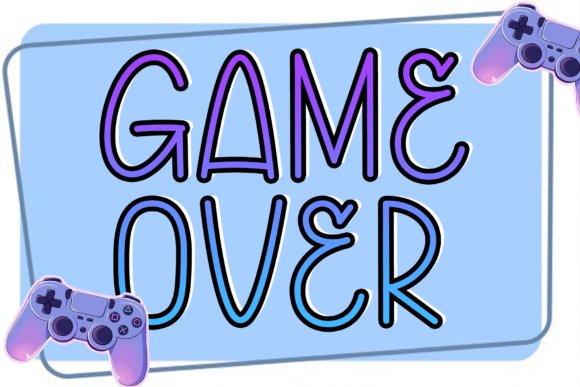
Moving away from the standard 8-bit blockiness, Game over offers a fluid, hand-inked aesthetic that challenges the traditional digital grid. This typeface captures the frantic, high-score-chasing energy of late-night arcade sessions while maintaining a sophisticated, monolinear weight that works beautifully in modern web environments. Its slender, elongated letterforms and intentional irregularities provide a refreshing departure from heavy, industrial esports fonts, making it a standout choice for creators who want to blend nostalgia with contemporary minimalism.
For content creators and lifestyle brands, these gaming fonts serve as a versatile foundation for vertical social media layouts and custom merchandise. The airy strokes allow for high readability without sacrificing the whimsical, human-centric vibe that is often lost in digital-first designs. Try pairing this font with a clean, low-contrast sans-serif to let its unique verticality and rhythmic flow dominate the visual hierarchy in your next creative poster or editorial header.
2. Brock Gaming Fonts
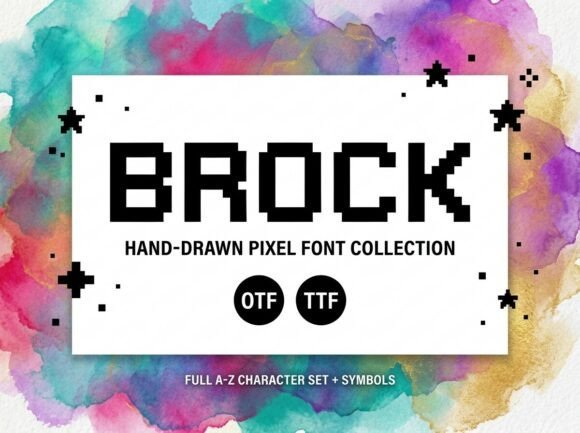
Brock manages a rare feat in the digital space by making pixels feel human through subtle hand-drawn imperfections. While many bitmap typefaces are locked into a rigid mathematical grid, these gaming fonts introduce organic irregularities that evoke the spirit of early handheld consoles and experimental indie titles. The bold, blocky weight ensures maximum impact even at smaller scales, making it an indispensable asset for developers looking to craft a user interface that feels authentic and lived-in rather than sterile and machine-generated.
Beyond the realm of game development, Brock is a premier choice for high-energy cyber-pop aesthetics and streetwear branding. Its digital rhythm provides the necessary visual punch for eSports stream overlays and YouTube thumbnails where instant recognition is critical for engagement. Use it to anchor a retro-futuristic layout by combining it with neon gradients and glitch effects to lean into the quintessential vaporwave or glitch-core visual identity.
3. Retro Gaming Gaming Fonts
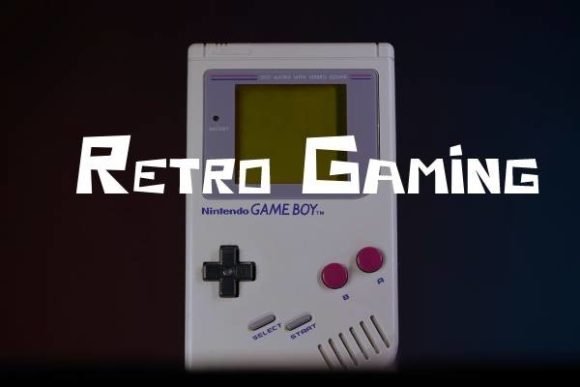
Channel the pure, unadulterated nostalgia of the 1980s console wars with Retro Gaming, a font that serves as a direct homage to the pixelated clarity of the golden age of platformers. Defined by its balanced geometric construction and iconic stepped diagonals, this typeface bypasses modern complexity in favor of a timeless structure. It is designed to trigger an immediate emotional connection to the cartridge-based adventures of the past, offering a level of legibility and charm that is often missing from more abstract display faces.
This font is a strategic tool for any brand looking to leverage vintage cool in their marketing collateral or event signage. Its wide, confident stance makes it exceptionally effective for title screens, achievement badges, and clothing designs that celebrate the roots of gaming culture. Whether you are building a website for a retro-themed arcade bar or designing promotional materials for a gaming tournament, these gaming fonts provide a solid, recognizable foundation that resonates across generations.
4. Roser Gaming Gaming Fonts
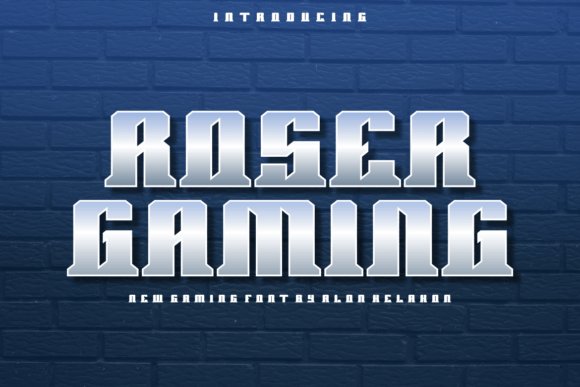
Roser Gaming brings a palpable sense of kinetic energy to the screen, characterized by its streamlined letterforms and subtle aerodynamic slants. This typeface is expertly engineered for projects that demand a feeling of velocity and modern sophistication, making it a premier choice for high-speed racing titles or futuristic sci-fi shooters where every second counts. The sharp terminals and consistent weight distribution ensure that your headlines remain legible even against the most chaotic high-resolution backgrounds.
Beyond the game interface itself, this font excels in the realm of digital content creation. It serves as a striking visual anchor for YouTube thumbnails and Twitch overlays, providing a professional edge that helps streamers build a cohesive brand identity. Its versatility allows it to transition seamlessly from in-game UI to physical merchandise, maintaining its punchy, high-tech aesthetic across various mediums.
5. Squad Gaming Gaming Fonts
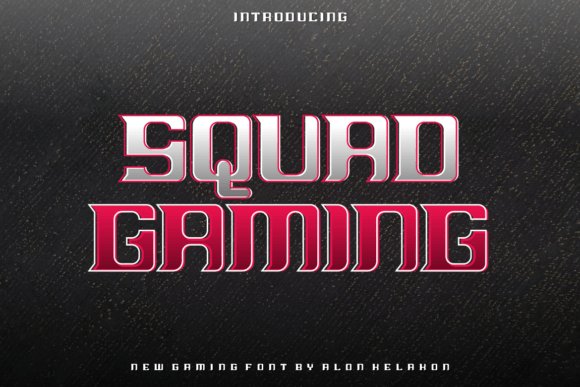
Squad Gaming is defined by its architectural stability and heavy-duty presence, evoking the spirit of tactical cooperation and military precision. The blocky, grounded structure of each character suggests a sense of reliability and strength, making it the perfect typographical partner for team-based battle royales or cooperative strategy games. Its wide stance and thick strokes are designed to command attention, ensuring that your clan name or tournament title feels immovable and authoritative.
This font is particularly effective when used for large-scale environmental assets, such as signage within a game world or massive banners at eSports arenas. Because of its sturdy proportions, it handles complex textures like brushed metal or weathered stone exceptionally well, allowing designers to apply gritty effects without sacrificing the integrity of the letterforms. It is the go-to option for branding that needs to feel established, rugged, and unified.
6. Kaisar Gaming Gaming Fonts
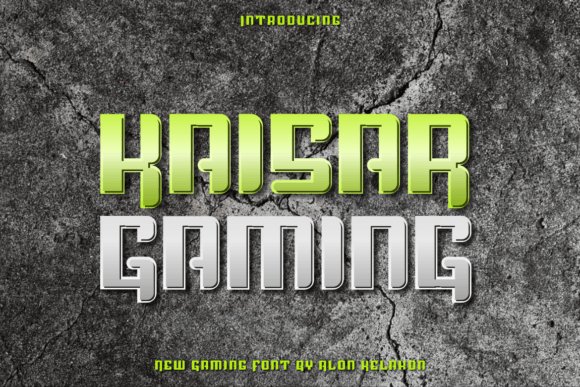
Kaisar Gaming strikes a balance between aggressive dominance and intricate craftsmanship, offering a typeface that feels both ancient and cutting-edge. The name itself suggests a level of imperial power, which is reflected in the sharp, talon-like serifs and the commanding verticality of the characters. It is an ideal fit for dark fantasy RPGs, epic boss encounters, or any scenario where the typography needs to instill a sense of challenge and high-stakes competition.
In a marketing context, Kaisar Gaming provides a distinctive silhouette that differentiates a brand from the sea of generic tech-heavy fonts. Use it for limited-edition hardware packaging or title screens where you want the player to feel the weight of the journey ahead. Its unique geometry works brilliantly for stylized logos, providing a signature look that feels custom-tailored for the most ambitious gaming projects.
7. Saruz Gaming Line Gaming Fonts
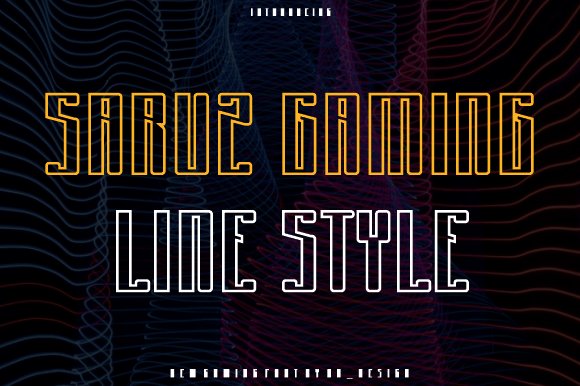
Saruz Gaming Line is a masterclass in high-performance typography, blending aggressive geometric angles with a streamlined linear aesthetic that captures the essence of digital speed. Unlike generic blocky fonts, this typeface utilizes deliberate negative space and sharp terminals to evoke a sense of futuristic engineering and competitive energy. It is specifically engineered to stand out on digital displays where clarity and punch are paramount, making it an elite choice for e-sports organization branding and high-tier competitive gaming logos.
Beyond its obvious application in team identities, Saruz Gaming Line excels in the realm of technical apparel and high-impact streetwear. Imagine these glyphs printed in reflective ink on a pro-player jersey or utilized as the primary HUD font for a sci-fi racing simulator. Its authentic, bold presence ensures that whether it is scaled down for a twitch overlay or blown up for an arena banner, the visual weight remains consistent and authoritative, providing a professional edge to any gaming-centric design project.
8. Stacked Chunky Gaming Fonts
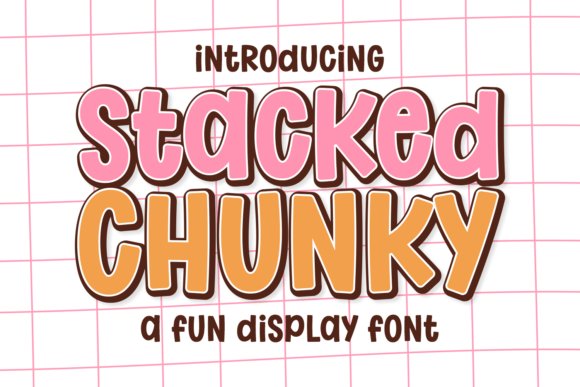
Stacked Chunky brings a delightful, tactile quality to the screen, reminiscent of the golden era of 3D platformers and colorful mobile adventures. Its heavy weight is masterfully balanced by soft, rounded edges, which prevents the font from feeling overbearing and instead makes it feel approachable and “squishy.” This typeface thrives in casual gaming environments where the goal is to create a friendly, high-energy atmosphere that appeals to a wide demographic, from younger audiences to nostalgic adults looking for a vibrant aesthetic.
The versatility of Stacked Chunky shines when paired with bold color palettes and drop shadows, creating a sticker-like effect that pops off the background. It is an exceptional candidate for world-building within UI interfaces, particularly for “Level Up” notifications, currency counters, or character selection screens. For content creators, this font is a powerhouse for YouTube thumbnails and social media assets, providing a maximalist charm that commands attention in a crowded feed without sacrificing readability.
9. Pixel Zone Gaming Fonts
![]()
Pixel Zone is a meticulously crafted homage to the 8-bit and 16-bit eras, offering a crispness that many retro fonts lack on modern high-resolution screens. It avoids the blurriness associated with upscaled pixel art by maintaining a strict grid-based structure that ensures every corner and curve remains sharp. This makes it an indispensable tool for indie developers working on Metroidvania titles, dungeon crawlers, or arcade-style projects that require a genuine retro soul combined with contemporary legibility.
What truly sets Pixel Zone apart is its comprehensive ecosystem; the inclusion of dedicated pixel game assets like hearts, coins, and UI cursors allows for a seamless design workflow where the typography and iconography are in perfect stylistic harmony. It is the ideal choice for creating immersive HUDs and menu systems that feel integrated rather than tacked on. Whether you are designing limited-edition retro merchandise or a complex inventory system for a pixel-art RPG, this font delivers a professional, unified look that honors gaming history.
10. Nova Gaming Fonts
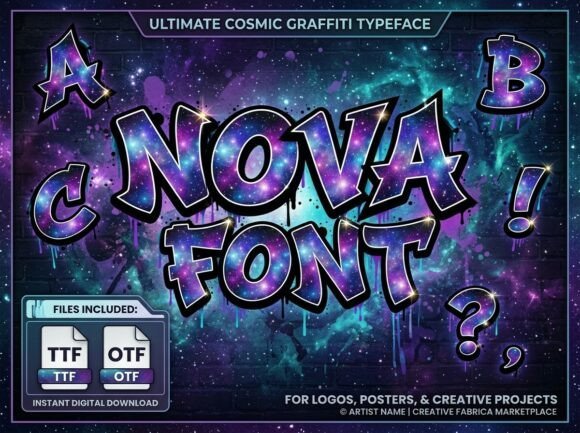
Nova bridges the gap between the gritty underground of street culture and the vast, untouchable reaches of outer space. Its letterforms carry an inherent sense of velocity, making it an ideal choice for fast-paced gaming environments where momentum and energy are the central themes. The font feels like a piece of cosmic graffiti, offering a sharp, aggressive edge that demands immediate attention in a crowded digital marketplace or a high-traffic streaming channel.
Designers looking to build a brand around a futuristic arcade or a high-stakes competitive league will find Nova’s space-age urban vibe invaluable. It performs exceptionally well in high-contrast color palettes—think neon pinks or electric cyans against deep void blacks—to highlight its jagged, stenciled silhouettes. This isn’t just a typeface; it’s a visual statement for streetwear collaborations or any digital campaign that needs to look both ruggedly tactile and technologically advanced.
11. Charm Gaming Fonts
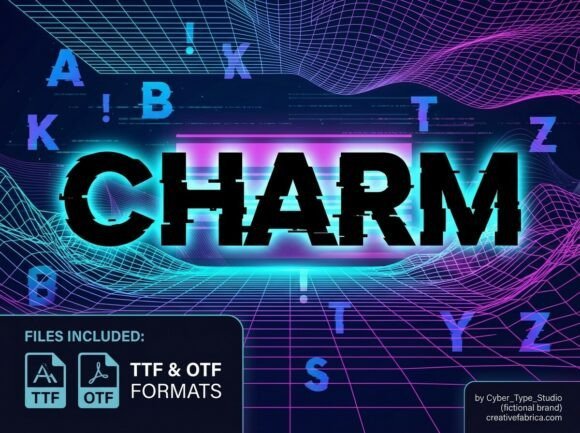
Charm is a masterclass in controlled chaos, capturing the exact aesthetic of a digital signal fracture. Its massive, blocky construction provides a solid foundation, while the rhythmic horizontal distortions simulate the look of a corrupted data stream or a vintage CRT monitor failing under pressure. This kinetic-and-coded aesthetic makes it a powerhouse for cyberpunk-themed projects where the atmosphere needs to feel both high-tech and intentionally unstable, bridging the gap between retro vaporwave and modern glitch art.
In the competitive realm of e-sports, Charm stands out for its unique ability to convey movement and disruption without sacrificing structural legibility. It is a perfect fit for team jerseys, cinematic intros, or social media headers where a sense of raw energy is required to cut through the noise of the feed. Whether used for a boutique gaming studio’s identity or a niche electronic music event, this font brings an electrified personality that standard display faces simply cannot replicate.
12. Lotterie Gaming Fonts
Lotterie introduces a sophisticated evolution of the sci-fi display genre by blending rigid geometric precision with sharp, serif-inspired terminals. This creates a fascinating hybrid look that feels both classically structured and light-years ahead of its time. The angular cuts and wide, confident proportions offer a structural integrity that works beautifully for cinematic title sequences and high-impact headlines, where every character needs to carry significant narrative weight and authoritative intent.
Beyond its aesthetic appeal, Lotterie is engineered for high-level functionality, featuring a robust set of stylistic ligatures and extensive multilingual support. This makes it a versatile tool for complex digital interfaces, technology branding, and global marketing campaigns where clarity is paramount despite a futuristic tone. It is particularly effective for space exploration sims or narrative-driven RPGs, where the typography needs to feel like an integrated part of a high-tech HUD or the architectural signage of a distant civilization.
13. Vintage Round Up Gaming Fonts
Vintage Round Up is a masterclass in adding tactile weight and atmospheric grit to a gaming project. It moves away from the clean, sterile aesthetics often seen in modern interfaces, opting instead for a heavy, distressed texture that evokes the feeling of weathered military stencils or old arcade signage that has survived decades of use. The chunky, all-caps structure provides a massive visual footprint, ensuring that your main titles possess a physical presence that feels earned rather than manufactured.
This typeface is exceptionally well-suited for post-apocalyptic survival games, underground fight leagues, or historical shooters where a sense of ‘worn-in’ reality is vital. Beyond the screen, its raw energy translates perfectly to physical merchandise like band-style t-shirts or collector’s edition boxes. Use it when you need to convey a story of resilience, rebellion, or a history that is anything but polished.
14. Building Blocks Smart Gaming Fonts
Building Blocks Smart bridges the gap between constructive play and high-tech sophistication. This typeface is defined by its modular geometry, featuring sharp, intentional edges that suggest a world built from logic and precision. It captures the essence of early computing and the current ‘sandbox’ genre, making it an ideal choice for games centered around crafting, engineering, or educational simulations where clarity and structure are paramount.
While the single-color version provides a sleek, minimalist look for HUDs and menu systems, the available multicolor variants offer a vibrant opportunity to create depth within a UI. It excels in environments where the player is encouraged to solve puzzles or build complex structures, providing a visual language that feels both intelligent and approachable. Whether it is used for an indie platformer or a sophisticated coding game, it delivers a modern, innovative personality.
15. Movetrax Booster Gaming Fonts
Movetrax Booster is designed for the adrenaline-fueled world of competitive speed and futuristic racing. Every character is infused with a sense of forward momentum, utilizing aggressive cuts and slanted, aerodynamic strokes that mimic the profile of a high-performance vehicle. It is a typeface that refuses to sit still, making it a powerful asset for creators working within the esports arena or the cyberpunk genre where tech-centric intensity is the standard.
The font’s condensed nature allows it to command attention on crowded layouts like tournament brackets, stream overlays, or fast-paced game intros without sacrificing legibility. Its sharp, digital aesthetic makes it particularly effective for branding high-octane sports events or designing the visual identity of a futuristic automotive brand. When your project requires a visual ‘boost’ that feels like a blur of neon and chrome, Movetrax Booster provides the necessary velocity.
16. Gaming Hobby Gaming Fonts
Gaming Hobby is a powerhouse of visual energy, specifically engineered to capture the high-intensity atmosphere of competitive esports. The font features thick, aggressive strokes and a distinct futuristic geometry that evokes the feel of high-performance hardware and neon-lit arenas. Its bold presence makes it an exceptional choice for clan branding, where a sense of dominance and unity is paramount, providing a visual weight that holds its own against busy, action-packed backgrounds.
Beyond simple logos, this typeface excels in the digital streaming ecosystem. When used for Twitch overlays or YouTube transition screens, the letterforms maintain crystal-clear legibility, even at smaller scales or under heavy motion-blur effects. It’s a versatile asset for creators who need their brand to scream excitement and professionalism simultaneously, making every virtual victory feel like a main-stage event.
17. Dasner Gaming Gaming Fonts
Dasner Gaming takes a more sophisticated, architectural approach to the digital aesthetic, blending sharp precision with modern minimalist curves. Unlike more chaotic display faces, Dasner provides a sense of technological advancement and clean execution, making it feel right at home in sci-fi RPGs or futuristic simulation interfaces. The balance between its vertical stems and sharp terminals creates a rhythmic flow that guides the eye naturally across the text.
This font is particularly effective for game UI elements, such as mission briefings, character stats, or equipment menus, where clarity is as important as style. It also serves as a brilliant foundation for tech-centric content creators who review hardware or discuss game development, offering a professional yet distinctly “gamer” look that avoids the common clichés of the genre.
18. Rusher Gaming Gaming Fonts
Living up to its name, Rusher Gaming is all about momentum and forward motion. The typeface is characterized by its slanted orientation and streamlined edges, mimicking the blur of a high-speed racing title or the snap-reactions required in a battle royale. Every character feels like it is in mid-sprint, making it the go-to selection for any project that needs to convey speed, urgency, and a proactive attitude.
Designers will find this font most useful when creating promotional banners or social media assets for tournament announcements and seasonal updates. Because of its inherent sense of motion, it pairs exceptionally well with motion graphics and video editing, where animated text needs to feel integrated into the physics of the scene. It’s a bold, unapologetic choice for brands that want to stay ahead of the pack.
19. Saruz Gaming Gaming Fonts
Saruz Gaming represents the pinnacle of robust, heavy-hitting typography designed specifically for the competitive arena. Its thick, unwavering strokes provide a sense of architectural stability, making it an ideal candidate for professional esports team logos where authority and presence are paramount. The authentic feel of this font stems from its balanced proportions and aggressive stances, ensuring that even at high speeds or small resolutions, the character forms remain distinct and commanding.
Beyond the digital screen, Saruz Gaming excels in tangible merchandise, particularly high-contrast t-shirt prints and embroidered jerseys. Designers can leverage its bold footprint to create striking visual hierarchies in tournament brackets and streaming overlays. This typeface doesn’t just display information; it projects a brand’s competitive spirit, making it a staple for anyone looking to build a legacy within the gaming industry.
20. Fat Fish – Ocean Gaming Gaming Fonts
Fat Fish – Ocean Gaming brings a refreshing splash of personality to the display font category, blending the charm of Saturday morning cartoons with the precision required for modern interface design. Its bubbly, rounded contours evoke a sense of friendliness and accessibility, which is essential for mobile games targeting a younger demographic or cozy gaming titles where a stress-free aesthetic is key. Despite its playful demeanor, the typeface maintains exceptional legibility, ensuring that menu buttons and quest descriptions are easy to read against busy, colorful backgrounds.
This font is a powerhouse for content creators, particularly those building a brand around vibrant YouTube thumbnails or whimsical social media assets. Its chunky silhouettes provide a perfect canvas for bright gradients and glossy textures, mirroring the aesthetics of underwater adventures or educational puzzles. When applied to school supplies or event posters, Fat Fish transforms standard text into a visual treat that captures the imagination of children and teens alike.
21. Edward Gaming Fonts
Edward is a raw, unapologetic tribute to urban street culture, meticulously crafted to bring a gritty, hand-drawn intensity to the digital space. Unlike traditional polished fonts, Edward features blocky, irregular structures and thick outlines that mimic the tactile feel of spray paint on concrete. This makes it an indispensable tool for gaming projects set in metropolitan environments, underground racing titles, or any narrative-driven experience that demands an authentic street atmosphere.
The font’s rebellious energy is perfect for streetwear collaborations and event branding where the goal is to disrupt the status quo. In the context of gaming graphics, it functions exceptionally well for title screens, graffiti-style in-game assets, or high-energy streaming overlays. By choosing Edward, designers can inject a sense of movement and organized chaos into their layouts, ensuring that their message resonates with a modern, trend-conscious audience that values raw expression over corporate minimalism.
22. Old Game Gaming Fonts
Old Game is a masterful recreation of the integer-based typography found in the golden age of 8-bit arcade hardware. Unlike modern fonts that merely simulate a low-resolution look, this typeface adheres to a strict geometric grid, ensuring that every character feels rooted in the physical limitations of vintage cathode-ray tube displays. The perfectly square modules and sharp corners provide a high-contrast visual that cuts through complex backgrounds, making it an essential tool for developers aiming for authentic retro-gaming aesthetics or chiptune-inspired visual identities.
Beyond its nostalgic appeal, this font serves as a functional powerhouse for modern streaming environments and e-sports branding. Its bold, monospaced appearance is ideal for technical UI elements, such as health bars, inventory systems, and scoreboards, where precision is paramount. Designers can leverage its unmistakable silhouette for high-impact titles on Twitch overlays or merchandise, providing a professional yet hardware-accurate finish that resonates deeply with the gaming community’s appreciation for digital history.
23. Verse Robo Gaming Fonts
Verse Robo bridges the gap between mechanical efficiency and the gritty atmosphere of a high-tech dystopia. This typeface features a modular, industrial architecture that feels as though it were etched into the metal hull of a derelict space station. Each character is balanced between sharp, aggressive angles and a calculated structural order, making it the perfect choice for projects that demand a sense of urban rebellion and futuristic authority. It moves away from the cleaner tropes of sci-fi to embrace a heavy, armored aesthetic that suggests both power and technological advancement.
This font is particularly effective for narrative-heavy RPGs or tactical simulators where the interface needs to feel like an integral part of the world-building. Use it for in-game corporate logos, hacking terminal screens, or HUD elements that require a sense of urgency and machine-like precision. Because of its wide, authoritative stance, Verse Robo also excels in motion graphics and cinematic titles, providing a weight and presence that grounds any sci-fi project in a tangible, believable future.
24. Pixel Gaming Fonts
![]()
Pixel captures the vibrant, high-energy spirit of the 16-bit era, focusing on the playful and bold characteristics of early console gaming. This font stands out due to its uniform, chunky block structure which invites creative experimentation through color-blocking and layering. While many pixel-based fonts lean toward the minimalist, this version provides a sense of volume and substance, making each letter feel like a physical component of a larger construction. It is a celebratory typeface that prioritizes visual impact and a sense of fun without sacrificing the structural integrity required for legible display work.
The versatility of Pixel makes it a prime candidate for indie developers working on cozy pixel-art titles or whimsical adventure games where personality is key. It functions exceptionally well on physical merchandise, such as enamel pins and streetwear, where the bold silhouettes remain distinct even at smaller scales. By utilizing its modular nature, designers can easily animate individual blocks or apply gradient fills to create a dynamic, modern interpretation of classic gaming motifs that appeals to both veteran gamers and a new generation of enthusiasts.
25. Singha Prestige Gaming Fonts
Singha Prestige offers a masterclass in visual storytelling for titles that demand both raw athleticism and high-end prestige. This dual-style typeface package balances a heavy, authoritative serif with a fluid, sophisticated script, effectively capturing the spirit of a world-class combat arena. The serif characters are built with sharp, aggressive edges and wide, stable proportions, mimicking the physical presence of a heavyweight champion, while the script provides that essential ‘VIP’ contrast for event branding and professional endorsements.
In the gaming landscape, this font is a powerhouse for titles centered around competitive fighting, sports management sims, or luxury-themed esports events. Imagine the serif used for player names in a high-stakes tournament bracket, while the script handles the ‘Invitational’ or ‘Season Pro’ sub-headers. Its multilingual support and diverse character map make it a versatile asset for international streaming overlays and apparel designs where you need to project a sense of hard-earned victory and undisputed dominance.
26. City Spray Gaming Fonts
City Spray captures the rebellious, high-octane energy of urban street culture through its meticulously designed graffiti aesthetic. Unlike standard display fonts, this typeface mimics the natural drip and pressure of a spray can, offering a raw, hand-drawn look that feels grounded in an underground environment. Each letterform flows with an organic, rhythmic movement, making it ideal for projects that need to break away from the grid and inject a sense of kinetic energy and ‘street-cred’ into the interface.
This font is particularly effective for open-world games set in metropolitan jungles, skating simulators, or street-style battle royales. Use it for mission titles, ‘wanted’ level indicators, or environmental storytelling elements like tags on a brick wall. Because of its thick outlines and bold silhouettes, it remains highly legible even against busy, textured backgrounds, making it a top-tier choice for social media thumbnails and streetwear-inspired merchandise that needs to pop instantly.
27. Pixel Wink Winks Gaming Fonts
![]()
Pixel Wink Winks is a charming tribute to the golden age of 8-bit hardware, offering a clean and modern take on the classic pixel-art aesthetic. Every character is designed with a specific geometric precision that ensures it looks crisp on high-resolution displays while maintaining the nostalgic, chunky warmth of a retro console. Its uppercase-only format is intentionally punchy, designed to deliver short, impactful bursts of information without the clutter of lowercase descenders.
This typeface is a perfect match for the booming ‘cozy game’ genre, retro-inspired platformers, or mobile puzzle titles. The whimsical nature of the glyphs makes them ideal for UI elements like ‘Level Up’ notifications, achievement pop-ups, or dialogue boxes for quirky NPCs. Beyond the game engine, it serves as a fantastic branding tool for streamers who want to cultivate a lighthearted, retro-gaming persona on their overlays and digital assets, bridging the gap between old-school pixels and contemporary design sensibility.
28. Designer Stacked Gaming Fonts
Designer Stacked reimagines the ‘sticker-core’ aesthetic by blending a bubbly, maximalist silhouette with a unique layered effect that gives every character a three-dimensional pop. This typeface is a masterclass in approachable design, featuring thick white borders and offset shadows that mimic high-quality physical decals. Its rounded terminals and bouncy baseline make it an exceptional choice for casual mobile games or interactive digital interfaces where a sense of touch and playfulness is required to engage a younger audience.
Beyond its visual depth, the font excels in high-energy branding environments, such as toy line packaging or celebratory event graphics. The subtle sparkle accents and geometric consistency provide a professional polish to its whimsical nature, ensuring that the ‘candy-shop’ charm never compromises legibility. For content creators, this font serves as a powerful tool for YouTube thumbnails and streaming overlays, slicing through digital noise with its bold personality and radiant, multicolored potential.
29. King Gaming Gaming Fonts
Embodying the spirit of epic sagas and grand expeditions, King Gaming establishes a commanding presence through its robust and adventurous letterforms. The typeface draws heavy inspiration from cinematic fantasy titles, offering a structural weight that suggests historical endurance and sovereign authority. It is specifically engineered for developers and designers who need to anchor their user interface in a world of high-stakes exploration, where every quest log and title card must feel like a piece of legendary lore.
The versatility of this typeface lies in its sophisticated balance between classic quest-inspired geometry and contemporary digital clarity. While it thrives within the realm of RPGs and fantasy-themed branding, its sharp execution makes it equally suitable for apparel design and competitive esports logos. By integrating this font into your project, you evoke a sense of timeless heroism, ensuring that your headers resonate deeply with players seeking an immersive and grand atmospheric experience.
30. Aegis Gaming Gaming Fonts
Aegis Gaming represents the cutting edge of modern display typography, characterized by its sleek, hyper-technical construction and futuristic profile. The typeface feels inherently built for the sci-fi and cyberpunk genres, where precision and defensive motifs are paramount to the world-building. Featuring sharp, deliberate angles and a clean, wide stance, it suggests high-speed performance and advanced hardware, making it a perfect match for competitive gaming team identities, tech reviews, or futuristic HUD overlays.
Unlike traditional display fonts that rely on heavy ornamentation, Aegis Gaming derives its visual impact from sophisticated minimalism and aggressive spatial arrangement. It is meticulously tuned to maintain its structural integrity even when subjected to complex digital effects like neon glows, chromatic aberration, or metallic textures. Utilizing this typeface allows you to elevate a project’s aesthetic to a premium tier, signaling to your audience a product that is both technologically forward-thinking and stylistically uncompromising.
31. Soang Gaming Gaming Fonts
Soang Gaming stands out as a pinnacle of contemporary display design, blending sharp, geometric precision with a sleek, futuristic aesthetic. Its letterforms are crafted to command attention, making it an exceptional asset for high-budget production trailers or title screens in the sci-fi and action genres. The balance between its thick weights and razor-sharp terminals ensures that every word carries a sense of technological sophistication and raw power.
Beyond its visual impact, this font excels in versatility for digital environments. It is particularly effective for stream overlays and leaderboard interfaces where clarity meets style. By incorporating Soang Gaming into your project, you elevate the visual narrative, providing a polished, high-end feel that resonates with a modern audience looking for the next evolution in gaming aesthetics.
32. Saruz Gaming Gaming Fonts
Saruz Gaming introduces an aggressive sense of motion through its expertly slanted italic forms. This typeface is built for speed and competition, capturing the high-energy atmosphere of professional e-sports arenas. The bold, thick strokes provide a sturdy foundation, while the italicized orientation suggests a forward-thinking, relentless drive that is essential for branding athletic gaming apparel or competitive team logos.
The authentic, rugged nature of Saruz Gaming makes it a top-tier choice for merchandise design, particularly for screen-printed t-shirts and hardware packaging. Its heavy presence ensures that it remains legible even from a distance, making it a reliable tool for event banners and promotional social media graphics. If you need a font that embodies the grit and determination of a professional gamer, this is the definitive selection.
33. Gaming Square Gaming Fonts
Gaming Square is a deliberate love letter to the golden era of 8-bit adventures and arcade cabinets. Utilizing a strict grid-based design, it captures the charming limitations of vintage hardware while maintaining a crispness required for modern high-definition displays. This pixel-perfect typeface is ideal for indie developers looking to create authentic retro UI/UX, from dialogue boxes in RPGs to score counters in classic side-scrollers.
The blocky, whimsical nature of Gaming Square doesn’t just offer nostalgia; it provides a structural clarity that many stylized fonts lack. It works wonderfully for digital artwork and pixel animations where a thematic consistency is paramount. Whether you are building a new world in a sandbox game or designing a website for a retro-gaming community, this font provides the foundational blockiness needed to evoke a sense of digital playfulness and historic charm.
34. Minecroft Gaming Fonts
Minecroft taps into the blocky, pixelated charm that has defined an entire generation of sandbox gaming. Its chunky, irregular letterforms evoke a sense of digital craftsmanship, making it an excellent choice for user interfaces in crafting games or adventurous indie titles. The visual weight is substantial enough to handle header placements, yet the whimsical edges keep the tone lighthearted rather than imposing.
Beyond simple in-game text, this font thrives in the realm of YouTube thumbnails and streaming overlays where a community-driven or creative-mode vibe is essential. It pairs exceptionally well with vibrant primary colors and 8-bit aesthetic assets, helping developers and content creators build a brand identity that feels both nostalgic and infinitely expandable.
35. Black Varsity Gaming Fonts
Black Varsity is a masterclass in aggressive, high-contrast typography, drawing its DNA from the heritage of competitive collegiate sports. The sheer thickness of the stems combined with the razor-sharp terminals creates a visual roar that is impossible to ignore. In the context of gaming, it serves as the ultimate branding tool for competitive ladders, tournament brackets, and team jerseys where displaying dominance is the primary goal.
This typeface isn’t just about weight; it is about the psychology of the varsity spirit. Use it for high-stakes esports announcements or as a centerpiece for merchandise that demands a professional, established look. Its clarity remains sharp even when viewed on small mobile screens during fast-paced streams, ensuring that your branding remains legible during the most intense moments of play.
36. Game Changer Gaming Fonts
Game Changer offers a sophisticated blend of geometric precision and a subtly weathered, vintage texture that suggests a history of victories. Unlike standard athletic fonts, it incorporates a ruggedness that feels authentic to the grit of the playing field. This makes it an ideal pick for titles focusing on sports simulations or retro-inspired arcade games where a balance between modern polish and old-school toughness is required.
The solid structure of this typeface provides an incredible foundation for heavy-duty graphic design, from large-scale event banners to intricate apparel prints. Its versatility shines when applied to social media promotional materials, as it conveys a sense of energy and momentum without sacrificing readability. It is the bridge between the nostalgic era of classic sports broadcasting and the high-octane world of contemporary digital competition.
Building a solid typography library is essential for any modern creator. These 36 display fonts offer the flexibility you need to tackle various aesthetics throughout 2026. By picking the right typeface from this list, you can ensure your message is not just seen, but felt by your audience. Keep experimenting with these styles to find the perfect match for your next big project.